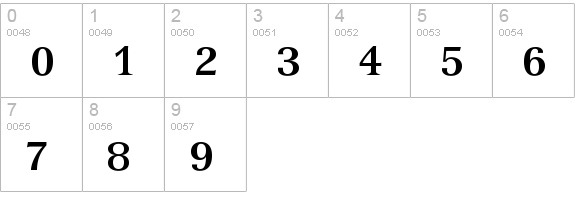
Versailles Bold Font Details
Versailles Bold is a strong, high-contrast variant in the Versailles typeface family \xE2\x80\x94 well suited to headlines, attention-grabbing titles, and strong calls-to-action.
Versailles Bold font is a striking and powerful typeface that exudes confidence and elegance. Its bold and assertive letterforms command attention and make a bold statement in any design. This font is perfect for creating eye-catching headlines, impactful titles, and strong logos. Versailles Bold is characterized by its strong and thick strokes that create a sense of weight and authority. The letters are meticulously crafted with sharp edges and clean lines, giving the font a modern and sophisticated look. Whether used for print or digital projects, Versailles Bold adds a touch of sophistication and professionalism to any design. One of the best things about Versailles Bold is that it is free. Yes, you heard it right! This stunning font is freely available to download at FontsMarket.com. It's the perfect opportunity to enhance your design projects without breaking the bank. With Versailles Bold, you can create captivating visuals that leave a lasting impression. So why wait? Don't miss out on the chance to elevate your designs with Versailles Bold. Download it for free at FontsMarket.com and let your creativity soar.